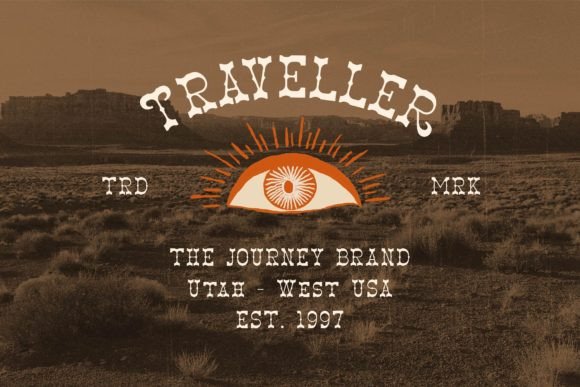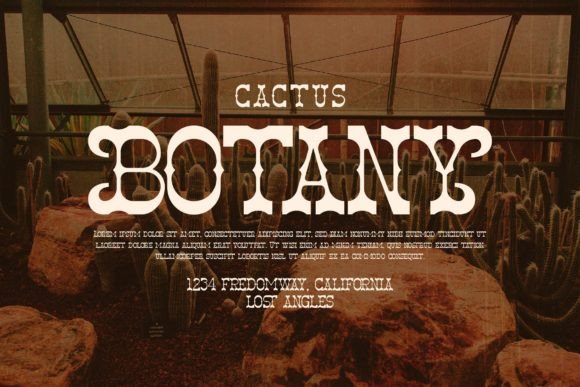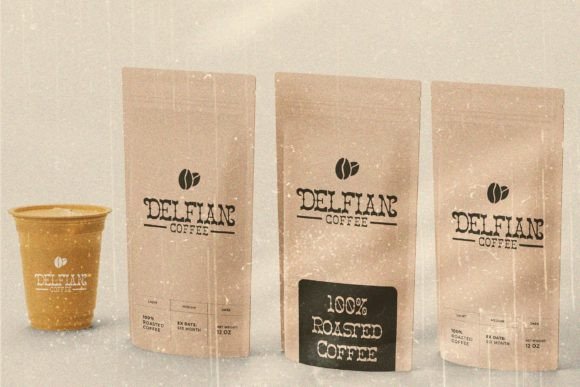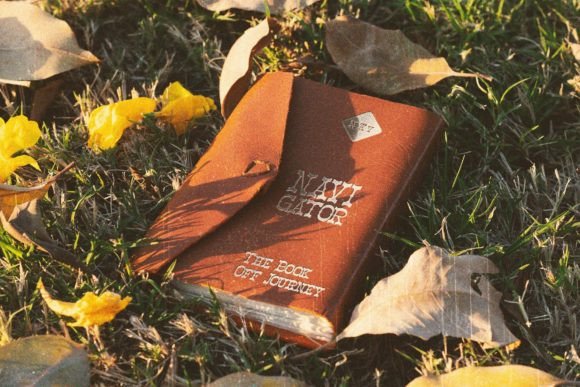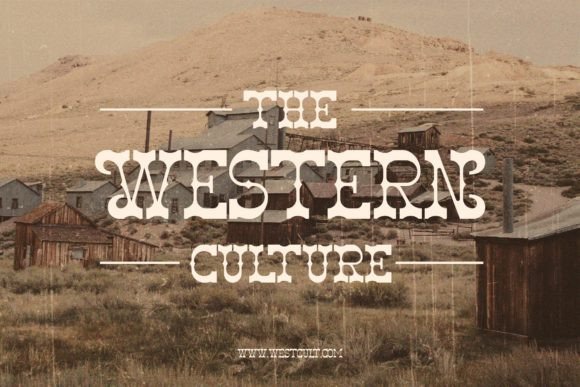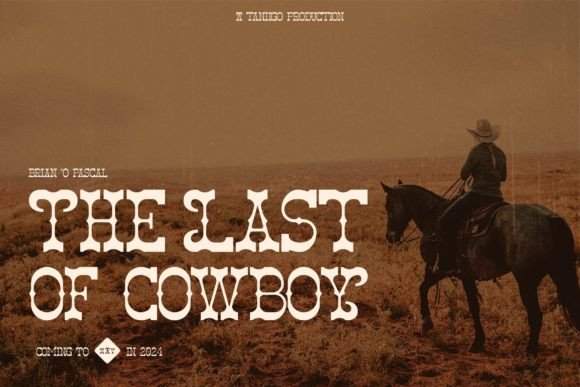
Aldest Tanigo Font: A Bold and Sturdy Classic for Headlines and Titles
In the world of typography, fonts play a crucial role in conveying messages, expressing emotions, and creating visual identities. For designers and crafters, finding the right font can make all the difference in their creative projects. One font that stands out from the rest is the Aldest Tanigo font, a bold and sturdy font style with a classic Western look.
The Characteristics of Aldest Tanigo Font
Aldest Tanigo is a bold and sturdy font style that exudes confidence and strength. Its thick, slab serifs give it a rugged and classic appearance, reminiscent of the Wild West. The font’s bold lines and sturdy structure make it ideal for headlines and titles that need to stand out. Whether you’re designing a poster, a logo, or a website, Aldest Tanigo is sure to grab attention and make a lasting impression.
Key Features of Aldest Tanigo Font
- Bold and Sturdy: Aldest Tanigo is a bold font with a sturdy structure, making it perfect for headlines and titles.
- Classic Western Look: The font’s thick, slab serifs give it a classic Western look that’s both rugged and timeless.
- High Visibility: Aldest Tanigo’s bold lines and strong structure make it highly visible, even at small sizes.
- Versatile: The font can be used for a wide range of creative projects, from posters and logos to websites and magazines.
Uses of Aldest Tanigo Font
Aldest Tanigo is a versatile font that can be used for a variety of creative projects. Here are some of the most popular uses of this font:
- Headlines and Titles: Aldest Tanigo is perfect for headlines and titles that need to stand out. Its bold lines and strong structure make it highly visible and attention-grabbing.
- Posters and Flyers: The font’s classic Western look makes it ideal for posters and flyers that need to grab attention.
- Logos and Branding: Aldest Tanigo can be used to create bold and memorable logos that reflect a brand’s personality and values.
- Websites and Digital Media: The font can be used for website headers, titles, and other digital media where high visibility is required.
Tips for Using Aldest Tanigo Font
Here are some tips for using Aldest Tanigo font effectively:
- Use it sparingly: Aldest Tanigo is a bold font, so use it sparingly to avoid overwhelming your design.
- Pair it with other fonts: The font can be paired with other fonts to create a unique and visually appealing design.
- Experiment with colors: Aldest Tanigo looks great in bold colors, so experiment with different colors to find the one that works best for your design.
Aldest Tanigo font is a bold and sturdy font style with a classic Western look. Its thick, slab serifs give it a strong and confident appearance, making it ideal for headlines and titles that need to stand out. With its versatility, high visibility, and classic look, Aldest Tanigo is a great choice for designers and crafters looking to add a touch of boldness and confidence to their creative projects.
Whether you’re designing a poster, a logo, or a website, Aldest Tanigo font is sure to make a lasting impression. So why not give it a try and see how it can elevate your design to the next level?